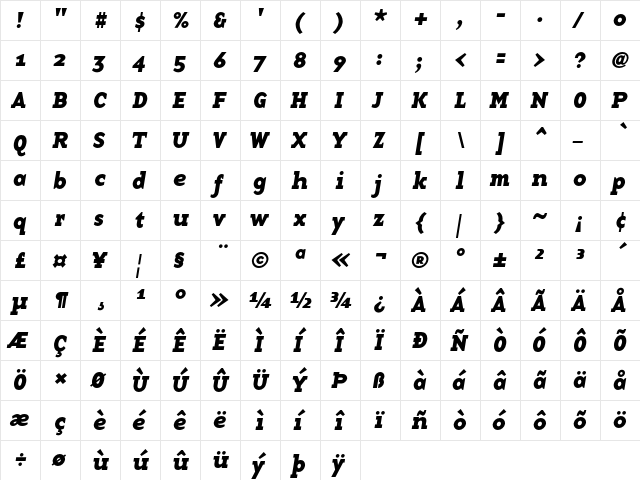
BaseTwelveSerif Bold Italic Font Preview
Design Context for BaseTwelveSerif Typeface
BaseTwelveSerif carries the refined structure of traditional serif typography, with bracketed terminals and considered proportions that communicate credibility and craft. The dynamic lean of this cut emphasises speed and emphasis in any layout. Its bold stroke weight gives it real presence on the page.
Pro Tip: Use BaseTwelveSerif for editorial body copy and considered headline work. Pair with a neutral sans for UI elements or captions to create a classic hierarchy.